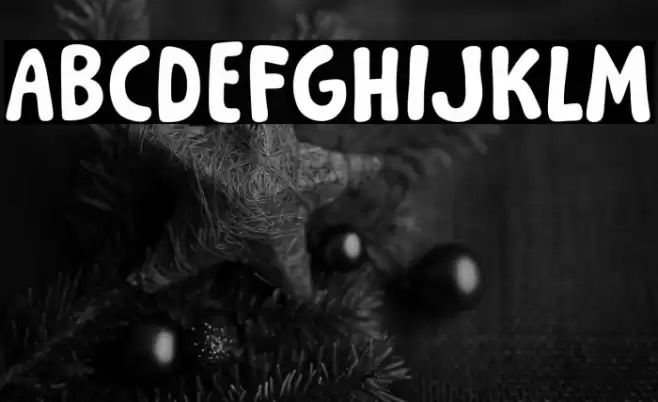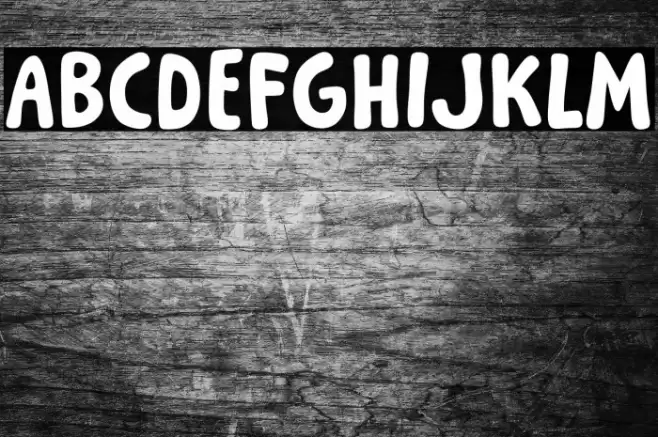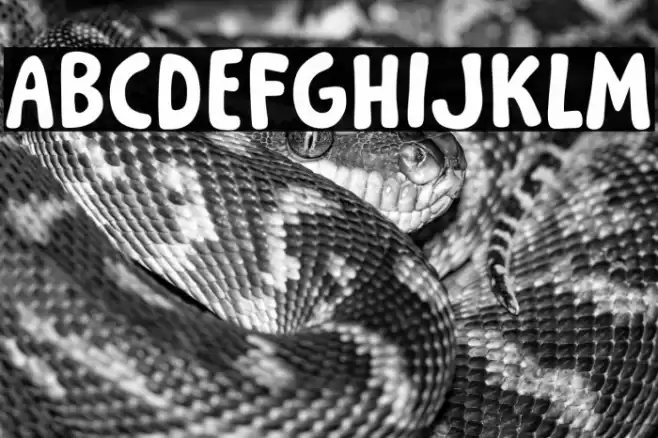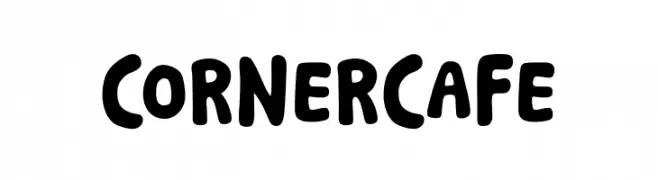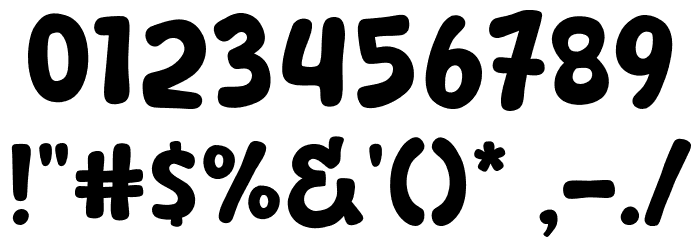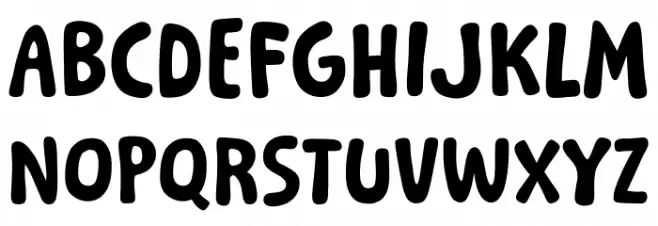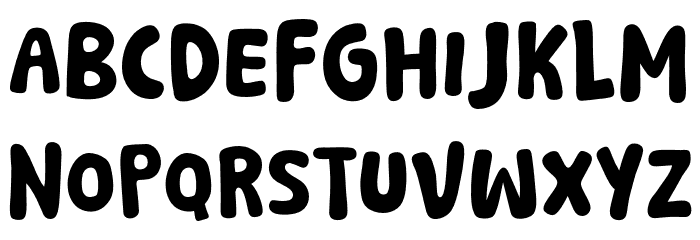
Corner Cafe Font
Corner Cafe Description
This font features a playful and bold style with rounded edges and a hand-drawn appearance. The characters are slightly irregular, giving it a casual and friendly feel. The uppercase and lowercase letters maintain consistent proportions, while the numerals and special characters complement the overall design. Its thick strokes and smooth curves make it highly legible, even at smaller sizes. The font exudes a sense of warmth and approachability, making it ideal for informal and creative projects.
A playful, bold font with rounded edges and a hand-drawn look from Uncategorized fonts.
- Font: Corner Cafe
- Proposed Projects: Perfect for cafe menus, children's books, playful branding, and casual invitations.
- Overall Style: Casual
- Use Case: Headlines, Logos, Invitations
Corner Cafe UPPERCASE
Corner Cafe LOWERCASE
Corner Cafe OTHER CHARS